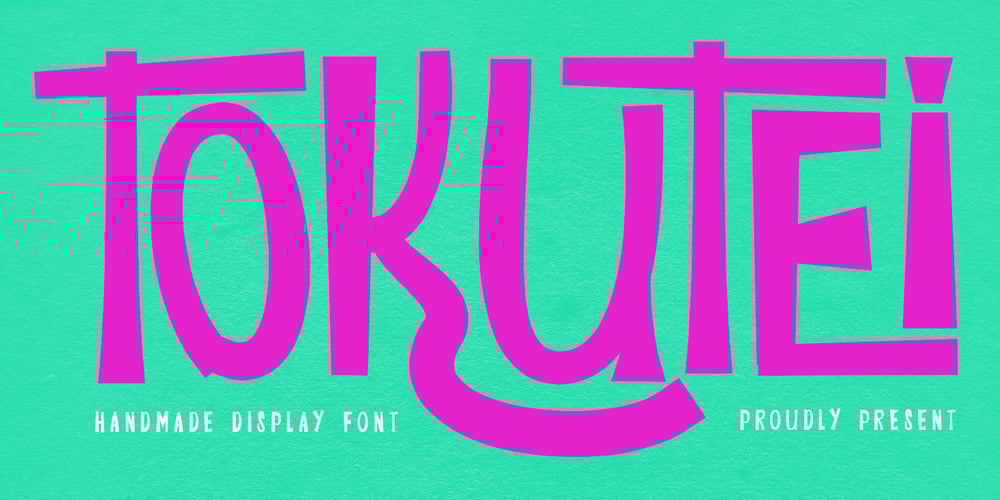
MC Tokutei
MC Tokutei font
MC Tokutei Font Family was designed by Gilang Maulana and published by Maulana Creative. MC Tokutei contains 1 styles and family package options. Tokutei is a cute display font. With fun character with a bit of ligatures and alternates. To give you an extra creative work. Tokutei font support multilingual language. This font is good for logo design, Social media, Movie Titles, Books Titles, a short text even a long text letter and good for your secondary text font with sans or serif. Make a stunning work with Tokutei font.Cheers,Maulana Creative